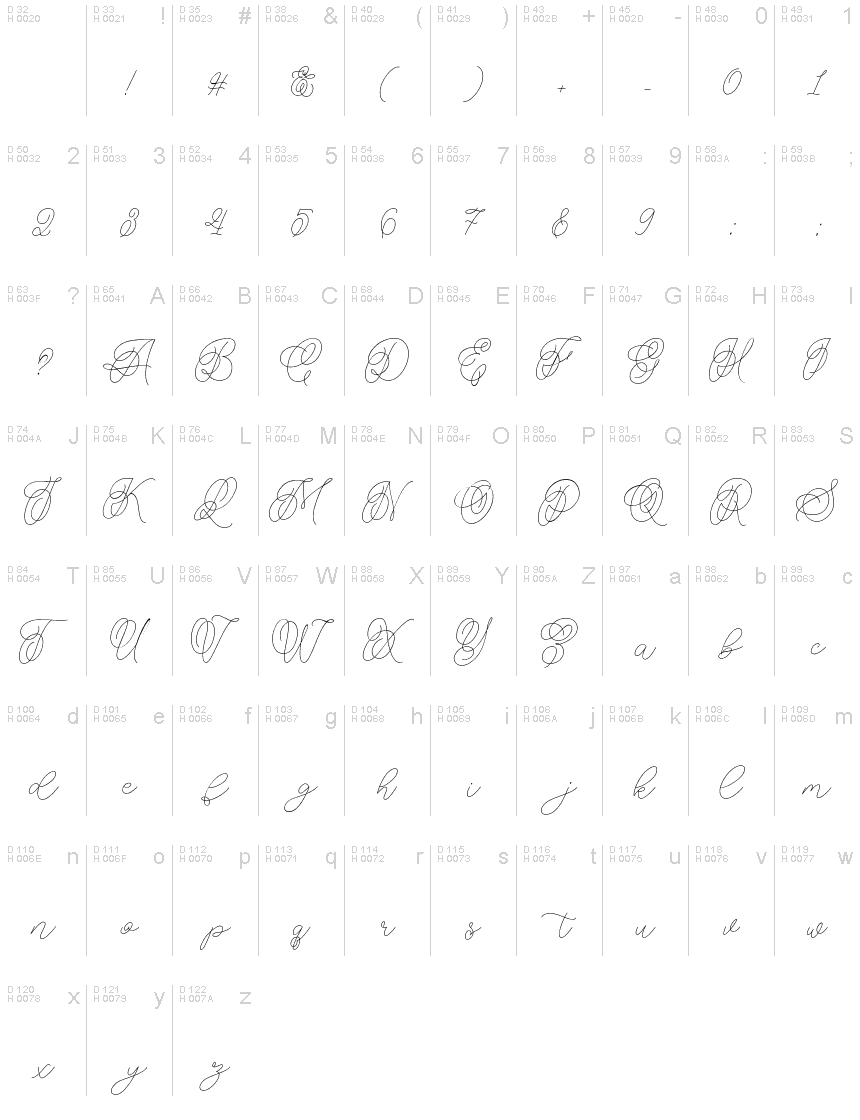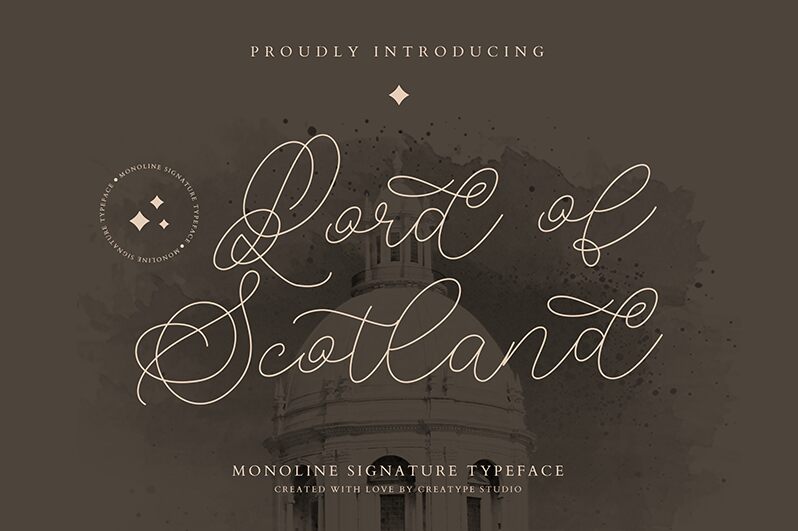
Lord of Scotland Regular
Looking for a unique and elegant handwritten font that is perfect for your creative projects? Look no further than Lord of Scotland, designed by Creatype Studio. With its ultra-light weight and monoline signature style, this font is perfect for adding a touch of sophistication to your designs. Whether you're creating invitations, logos, or social media graphics, Lord of Scotland will make your text stand out. Try the semi-bold font style for headlines or the regular width for body text. Elevate your designs with Lord of Scotland today!